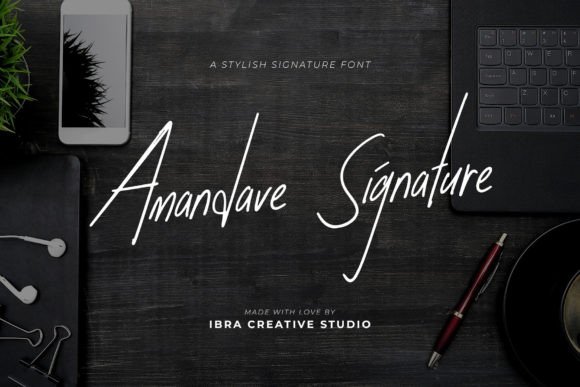
Behold the Amandave Signature Font, a stroke of genius that will elevate your creative projects to new heights of elegance and sophistication. Crafted with the utmost care and attention to detail, this script font is inspired by the timeless beauty of handwritten signatures, exuding a charm and individuality that will leave you breathless.
Transport yourself to a world of luxury and refinement as you explore the endless possibilities of Amandave Signature. This font is a true masterpiece, combining the grace of calligraphy with the boldness of modern typography. Its flowing curves and delicate flourishes dance across the page like a symphony of ink, adding a touch of magic to every letter and word you create.
Step into the spotlight with Amandave Signature and make a statement that will resonate with your audience. Whether you're designing a captivating logo, creating stunning invitations, or crafting elegant branding materials, this font will elevate your vision and leave a lasting impression. Its versatility extends from the formal to the whimsical, making it the perfect choice for a wide range of projects, from business documents to personal correspondence.
With Amandave Signature, you'll discover a font that is more than just a collection of characters—it's an expression of artistry, a reflection of your unique style, and a gateway to a world of creative possibilities. Embrace the beauty of handwritten elegance and let Amandave Signature transform your words into works of art.